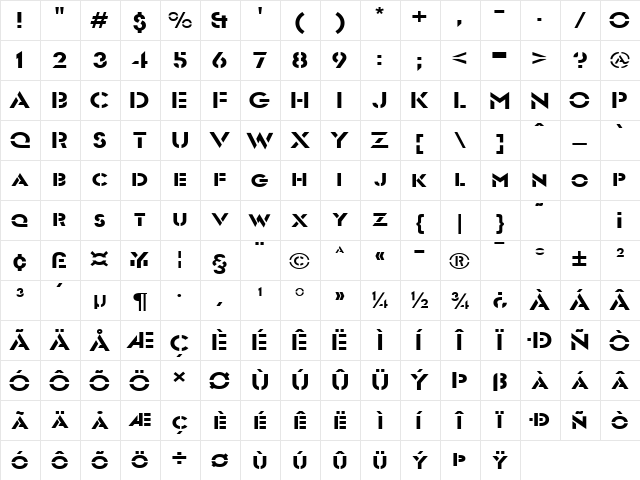
Stencil Sans-Extended Normal
Stencil Sans-Extended borrows the utilitarian aesthetic of stencil lettering, with its characteristic cutaways and no-frills construction lending an industrial edge.
Ideal for industrial branding, streetwear, military-adjacent aesthetics, and urban signage projects.
Pro Tip: Pair Stencil Sans-Extended with raw, utilitarian design elements — exposed concrete textures, flat colour, and minimal ornamentation suit it well.